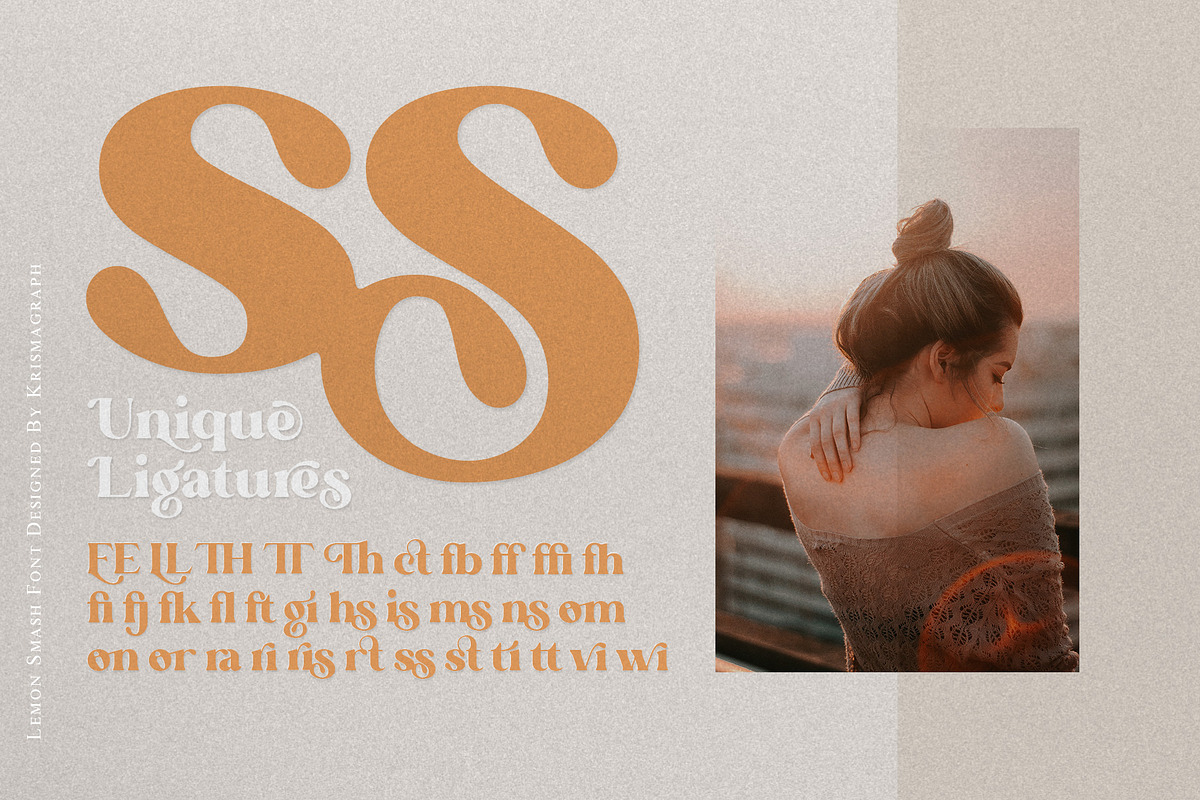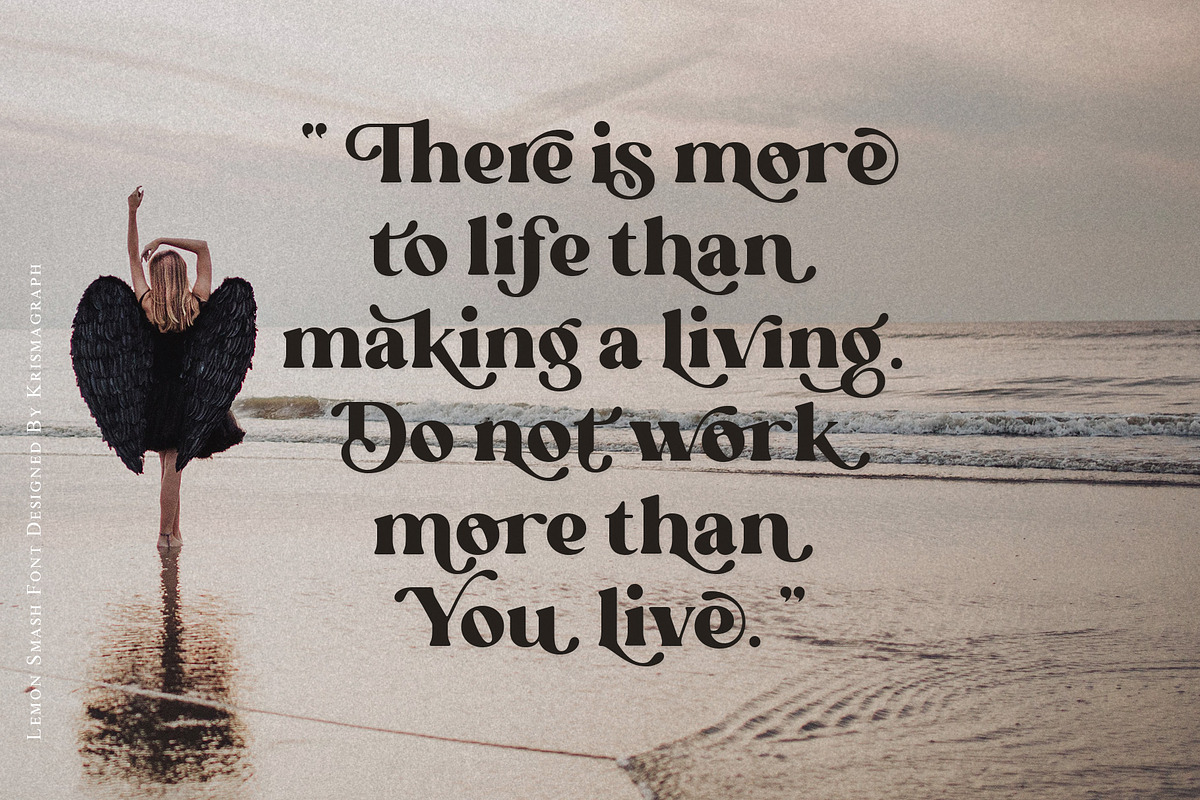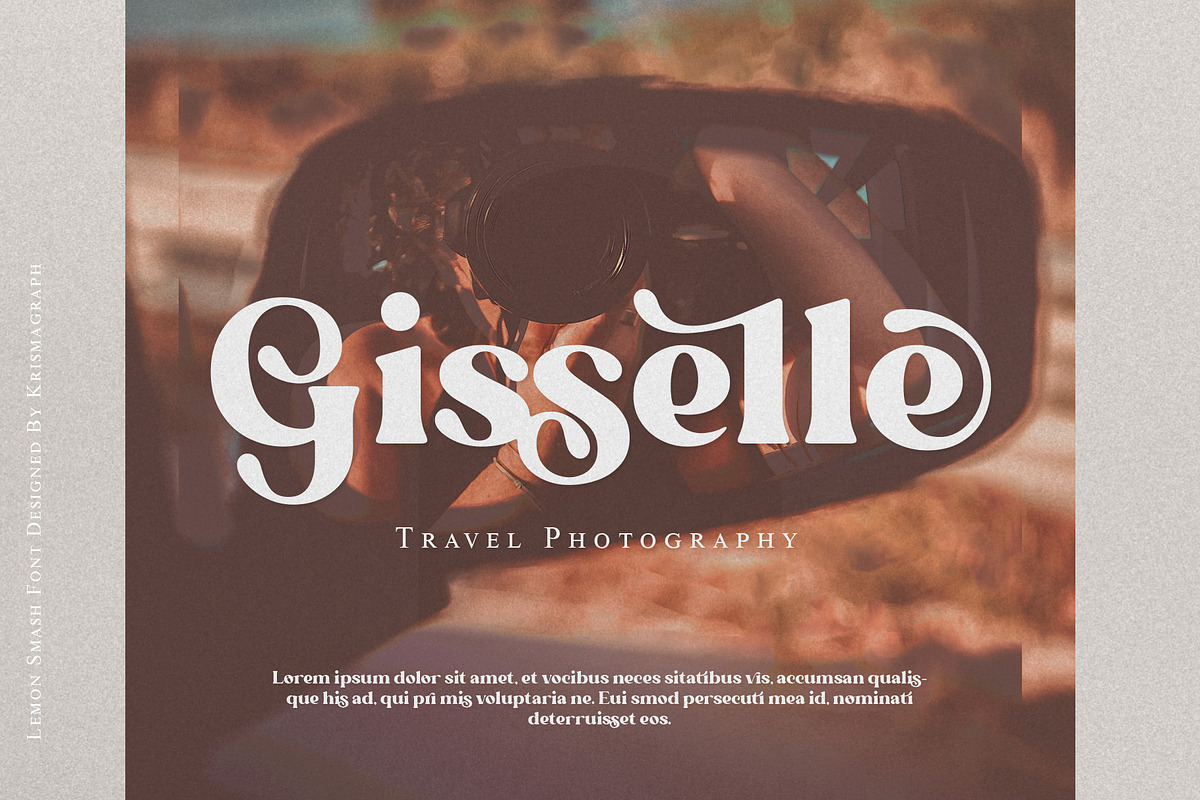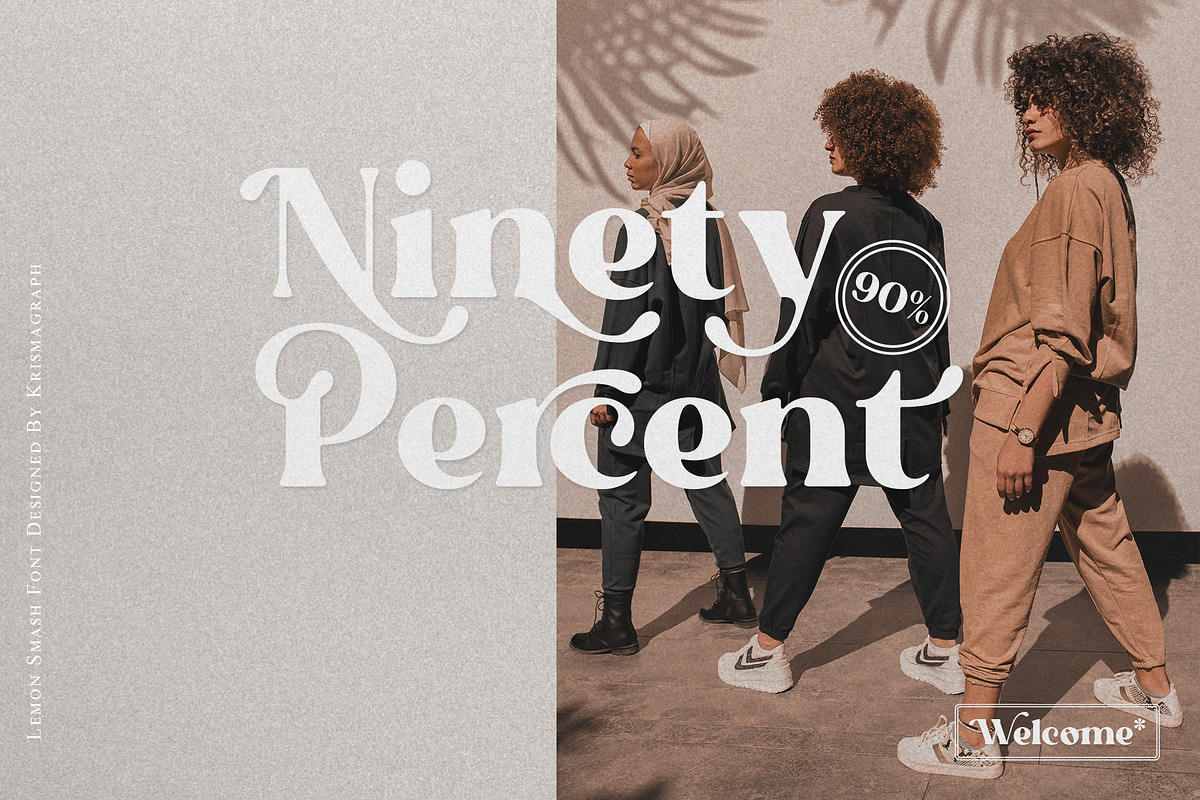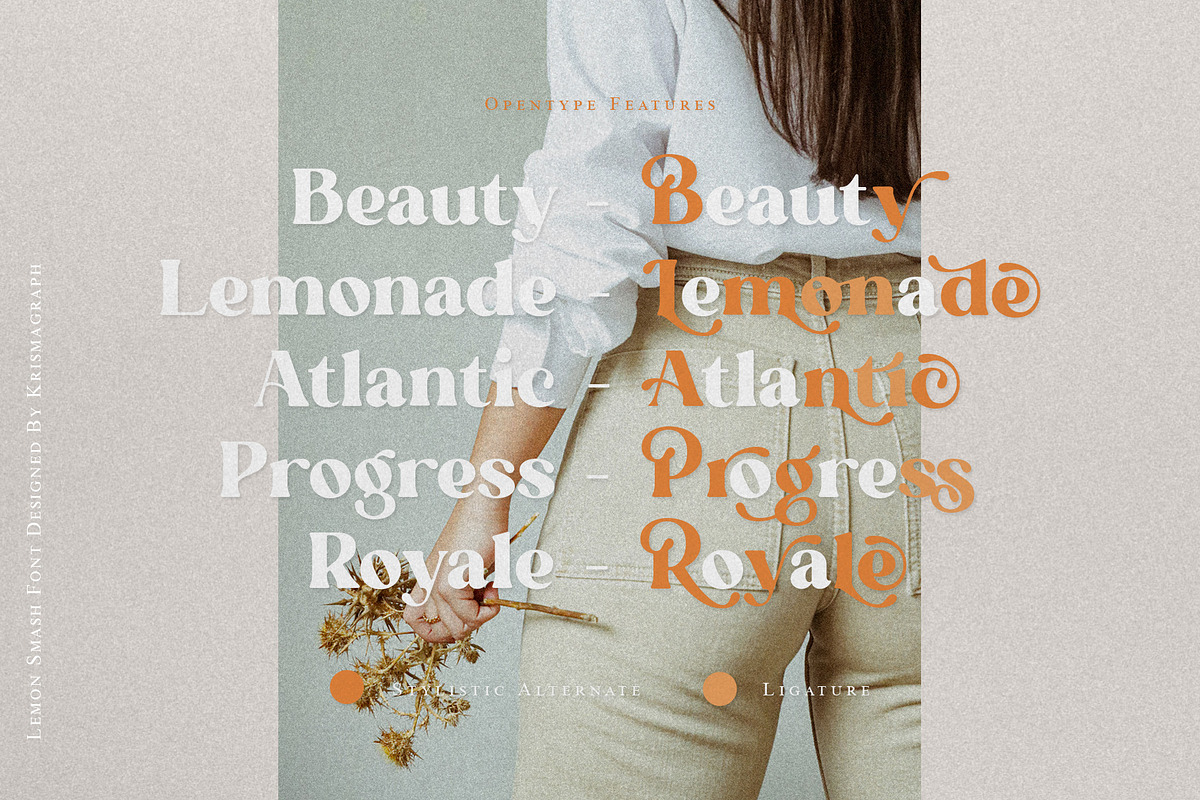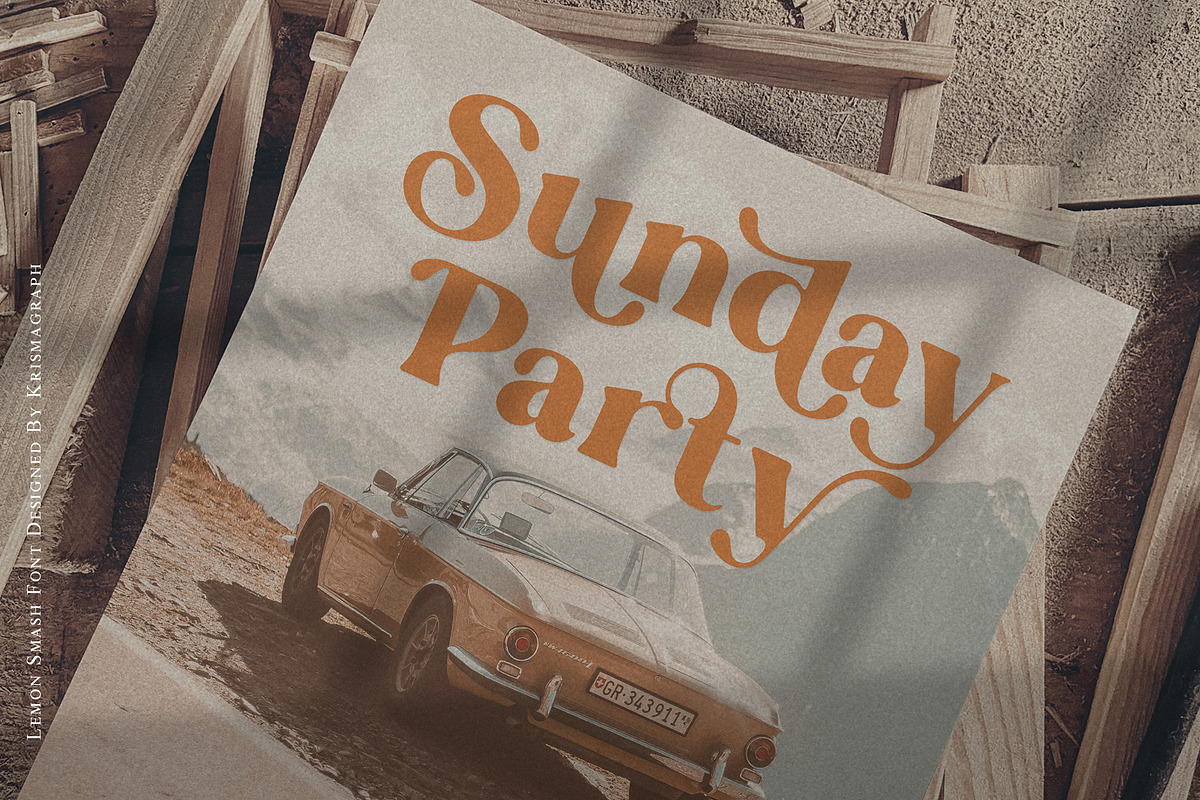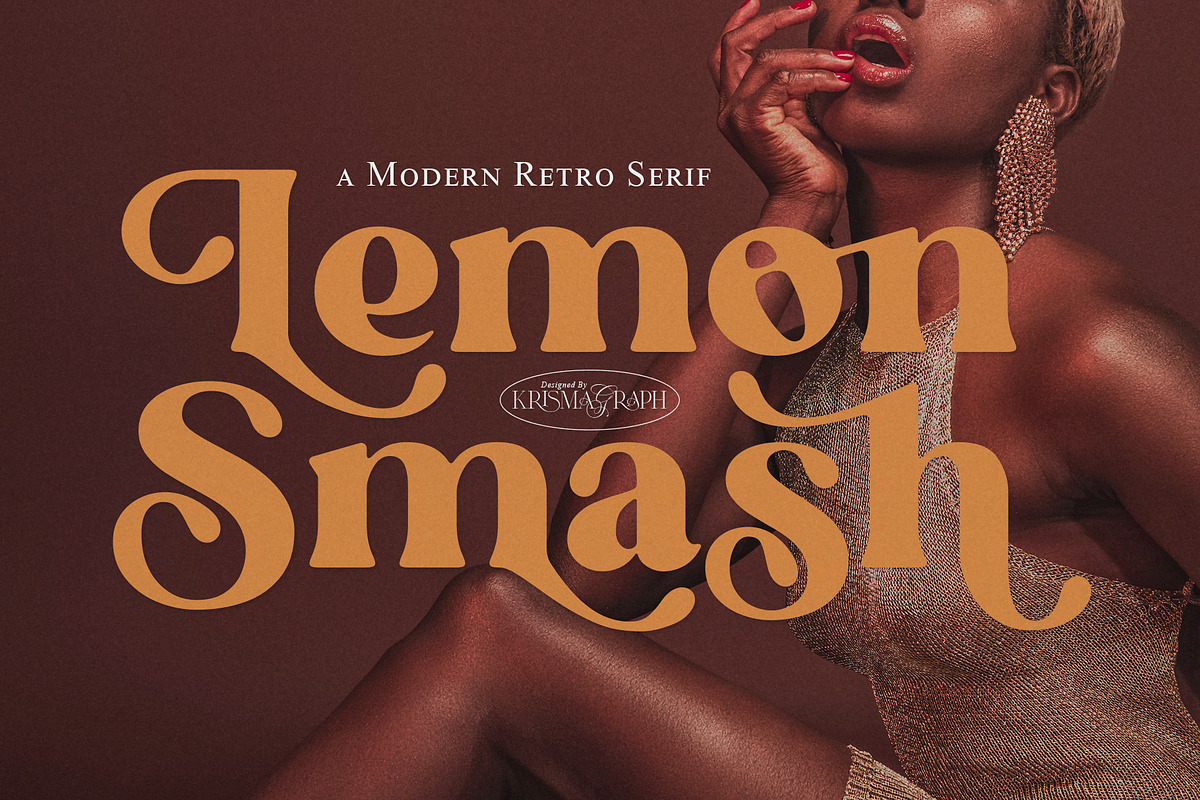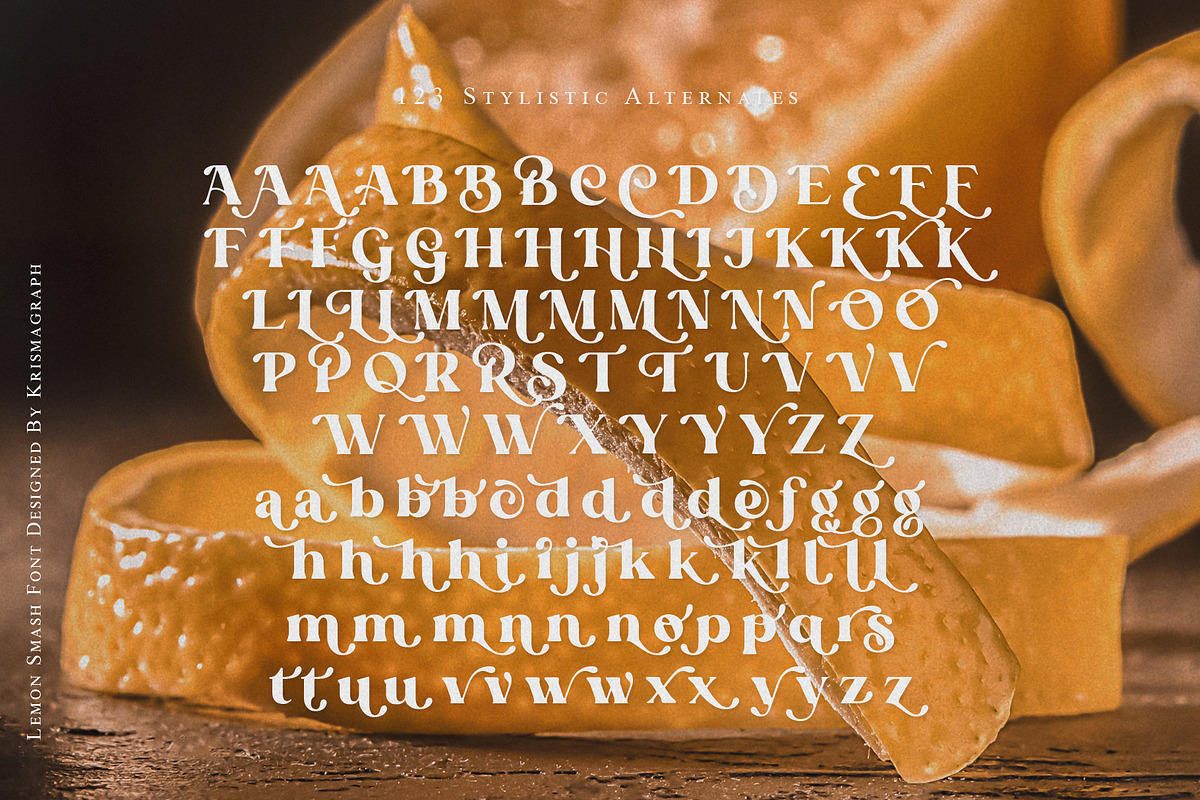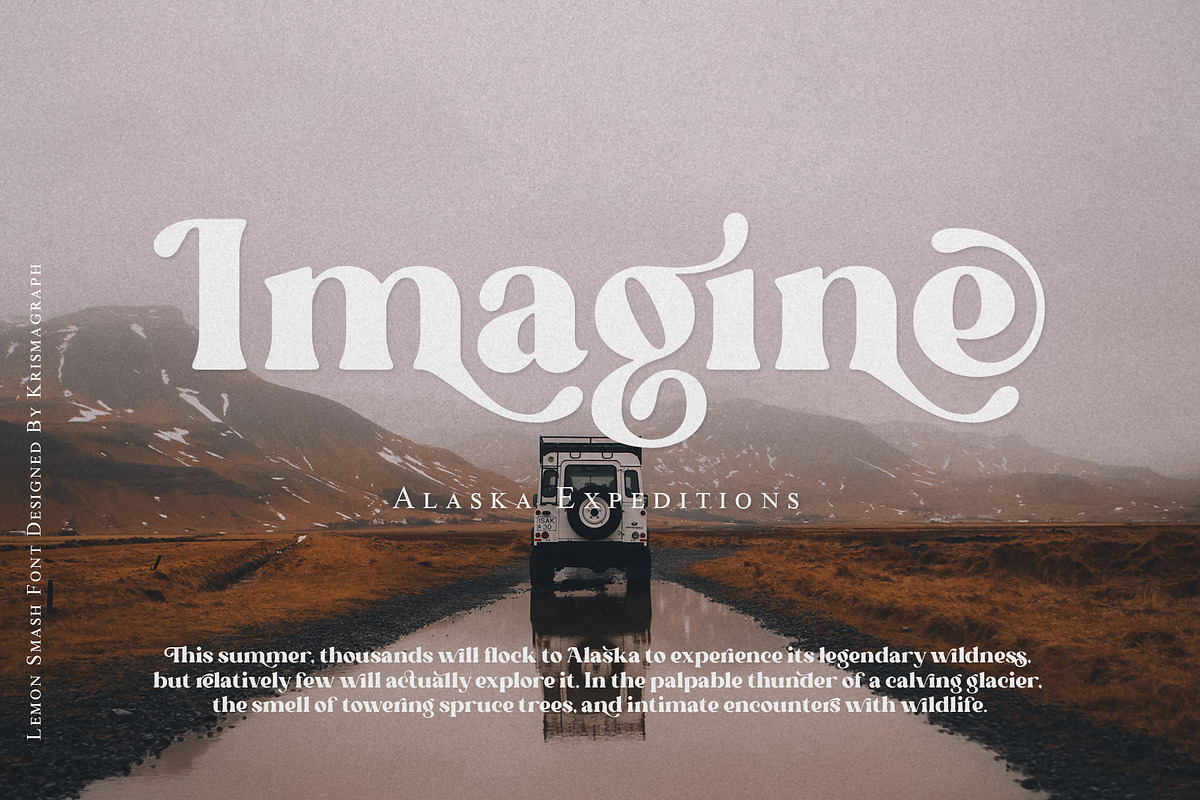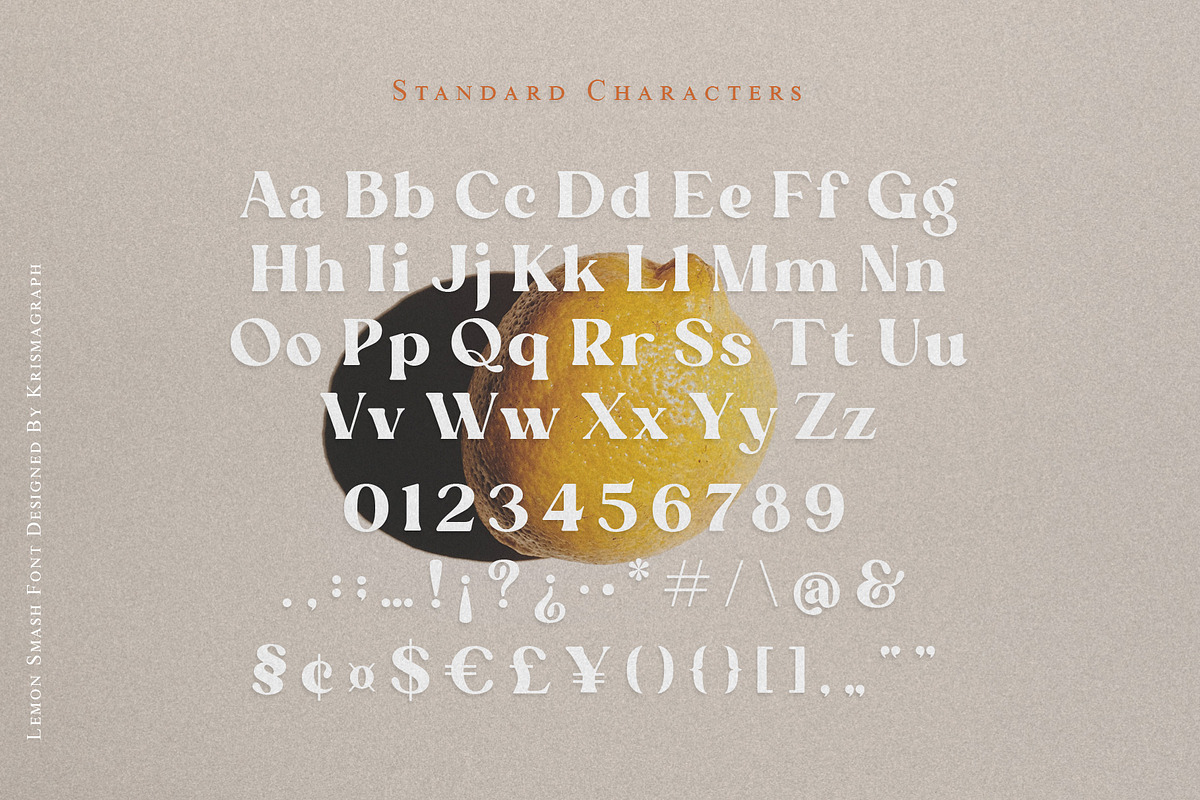
Lemon Smash | Modern Retro Serif
Lemon Smash is a modern & retro bold serif with a soft, rounded finish. Equipped with 123 alternates and unique ligatures, making it very suitable for display, branding, packaging, logos, invitations, master heads, and others with a retro touch but still clean and elegant.
- Full alphabet with Uppercase and Lowercase
- Numbers, fractions
- Punctuation and symbols
- 123 Alternates